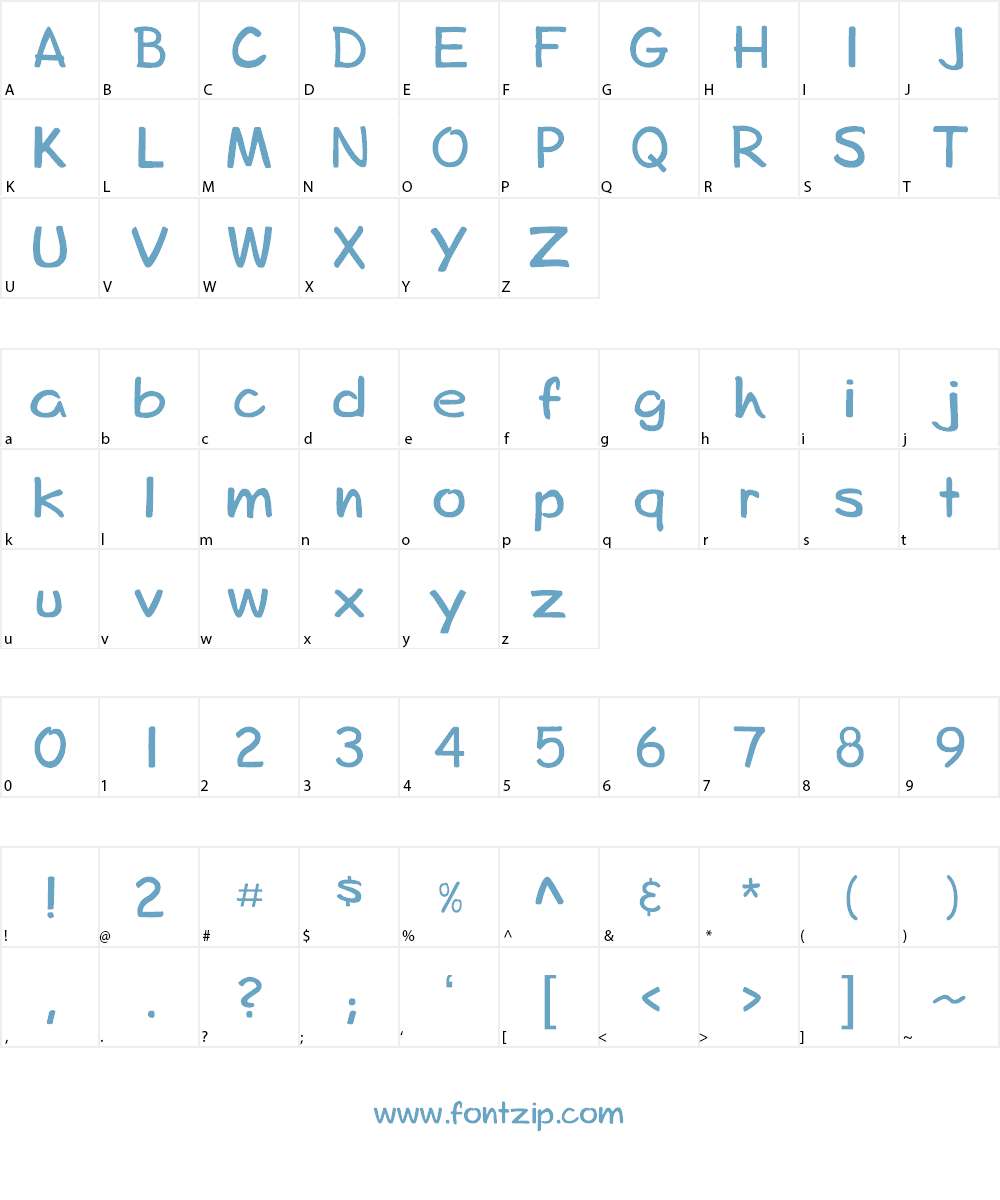
Just a simple handwritten face that looks good in small point sizes as well as large. Has the appearance of a fine point marker but not sloppily written. Most punctuation is there for just about any application. Check out bosil Marker if you like this one.